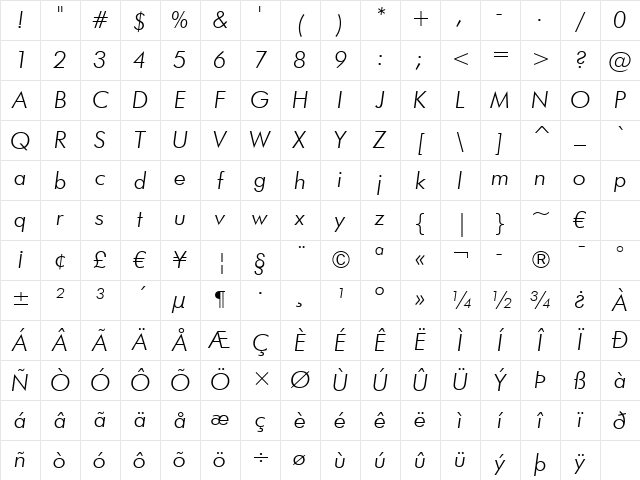
Futura Lt BT Light Italic
Futura Lt BT Family
Design Context for Futura Lt BT
Futura Lt BT has a distinctly futuristic character, with geometric precision and clean angles that feel at home in technology, gaming, and sci-fi contexts. The slanted form adds forward momentum and visual energy. Its slender proportions lend an understated elegance to any composition.